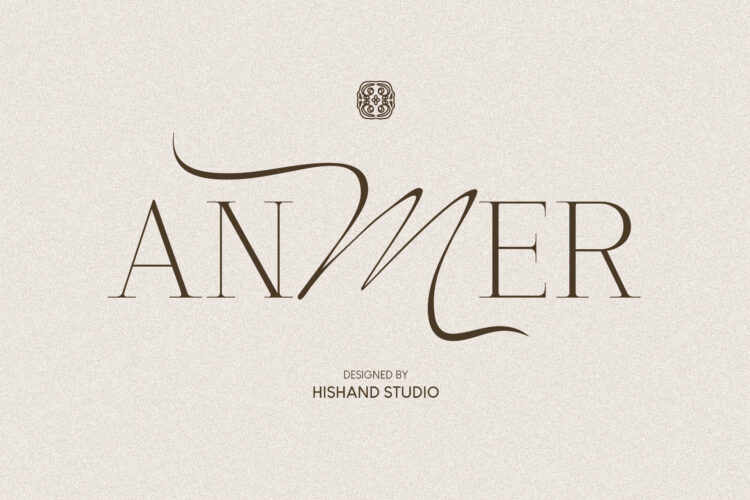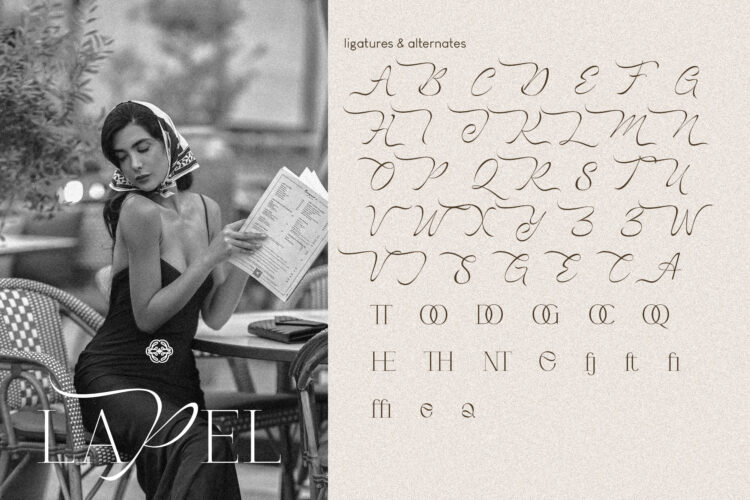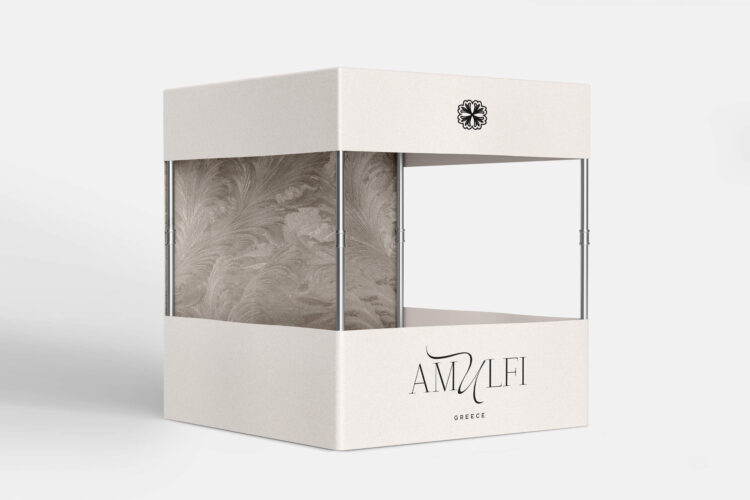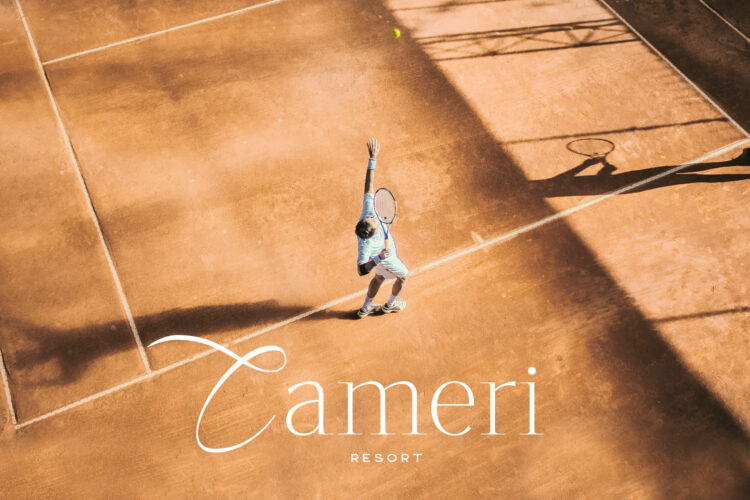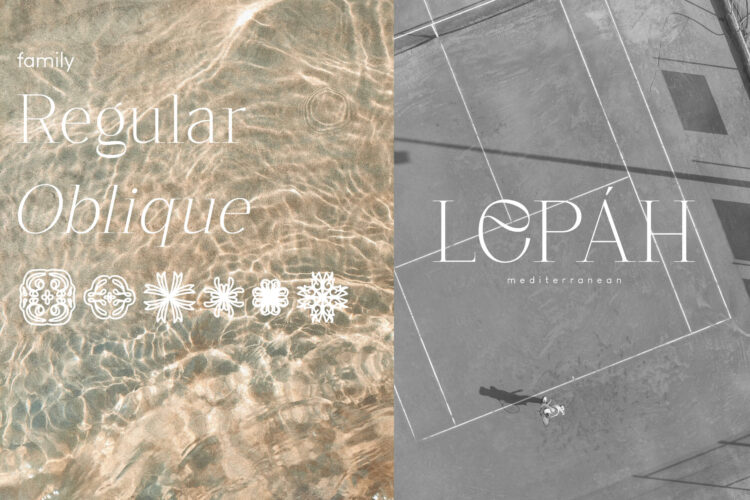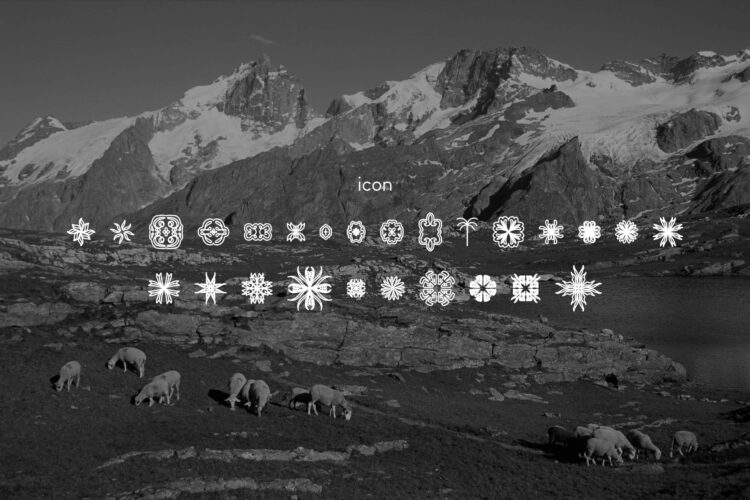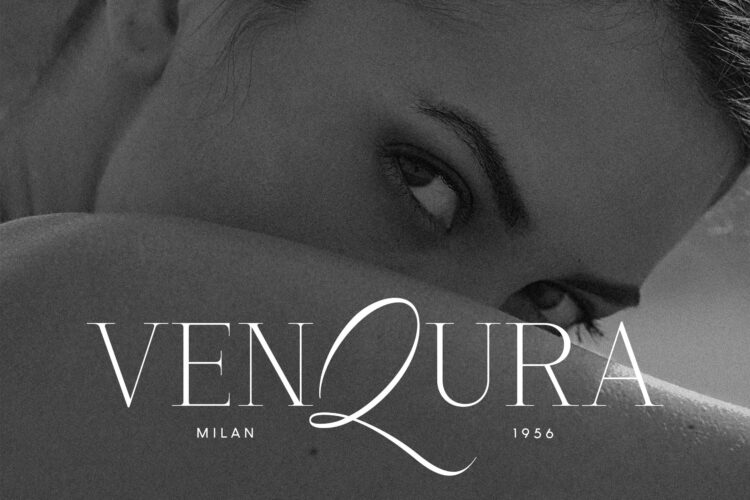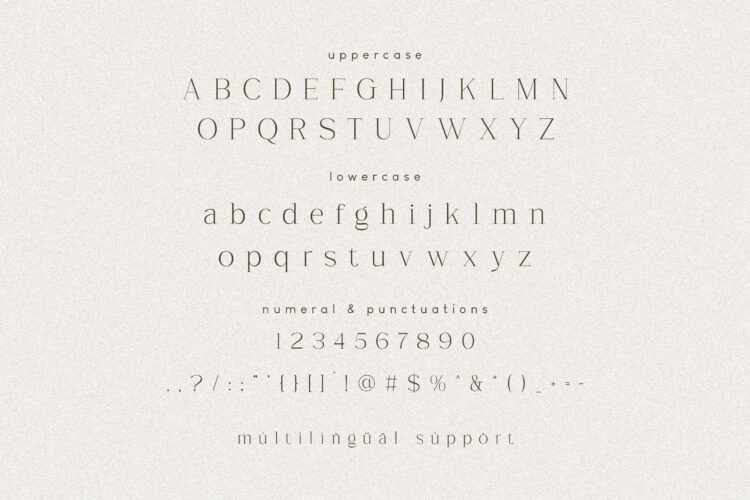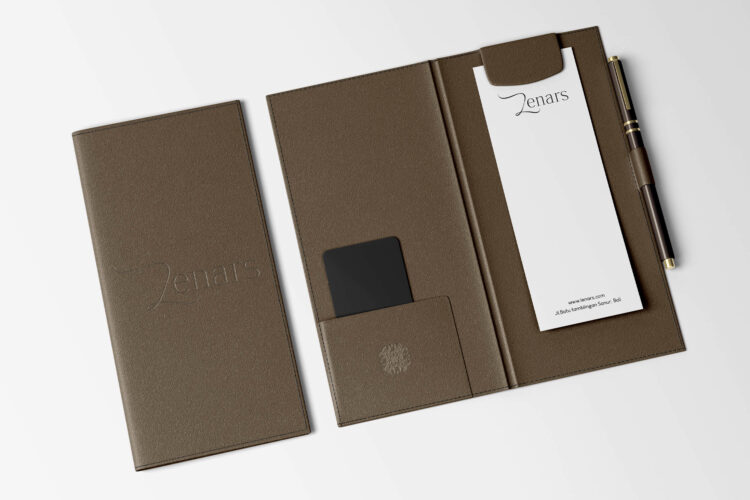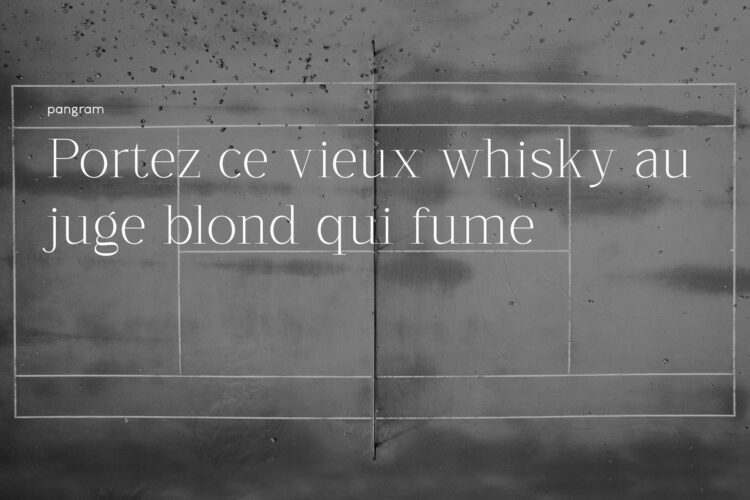
Anmer Elegant Font is a mixed font blending serif and script into a single, cohesive design. Most of the letters follow a clean, structured serif form, classic proportions, fine stroke contrast, small precise serifs, giving the word a foundation that feels traditional and dependable. Then, without warning, a script character breaks the pattern. It shifts into a flowing, connected style that loops above and below the baseline, carrying real energy and motion into an otherwise composed word. The two styles sit side by side, serif discipline against script movement, and that contrast is the whole point of the design. Nothing about it feels accidental. The serif letters are built to stay quiet and let the script moment do the talking, while the script itself is drawn with enough control that it never feels like it belongs to a different typeface entirely. It is one word, one idea, told in two voices.
That balance is what makes Anmer Elegant Font so versatile. Anmer works best where a brand wants to feel established but not stiff, where credibility matters but a little warmth and character are welcome too. Think fashion labels that want elegance without going cold, perfume packaging that needs a single striking flourish on the bottle, wedding stationery where formality and romance both need to show up, editorial headers that want to feel considered rather than default, or any logotype that needs one unforgettable curve to make it memorable. It reads well large, so it holds up beautifully on signage, packaging, and title treatments, but it also holds its personality at small sizes, which makes it just as useful in a footer, a business card, or a product label. It pairs easily with a plain sans for body text, letting Anmer stay in its lane as the expressive headline voice while the rest of the layout stays calm and legible.
Complete with
- ligatures
- alternates
- regular
- Oblique
- icon
- kerning
- multilingual support